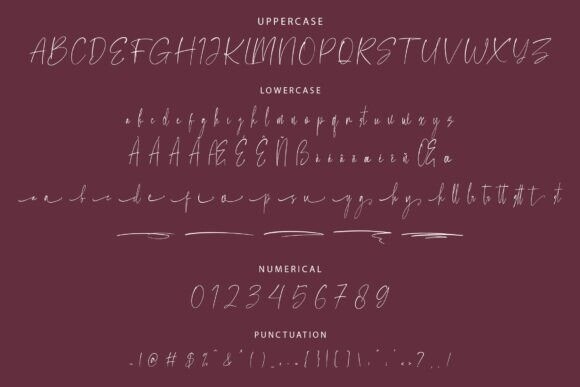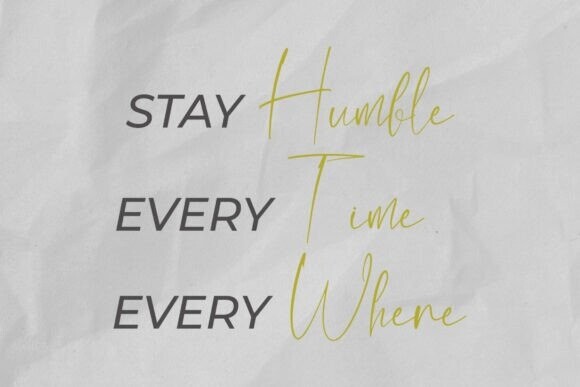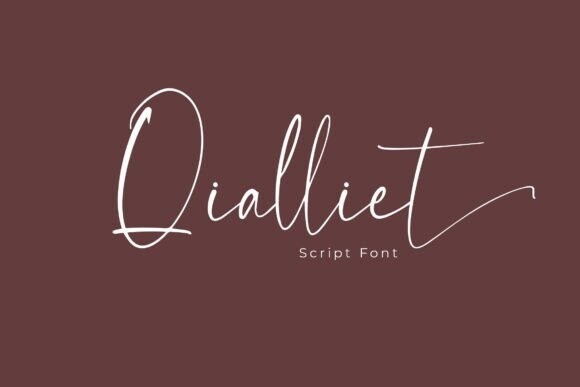
Qialliet Font
Qialliet Retro is a minimalist script font designed with elegance and simplicity in mind. Its unique character shapes bring a refined touch to any project, making it perfect for logos, branding, invitations, and more. Qialliet enhances the visual appeal of your designs, ensuring they stand out with style and sophistication.